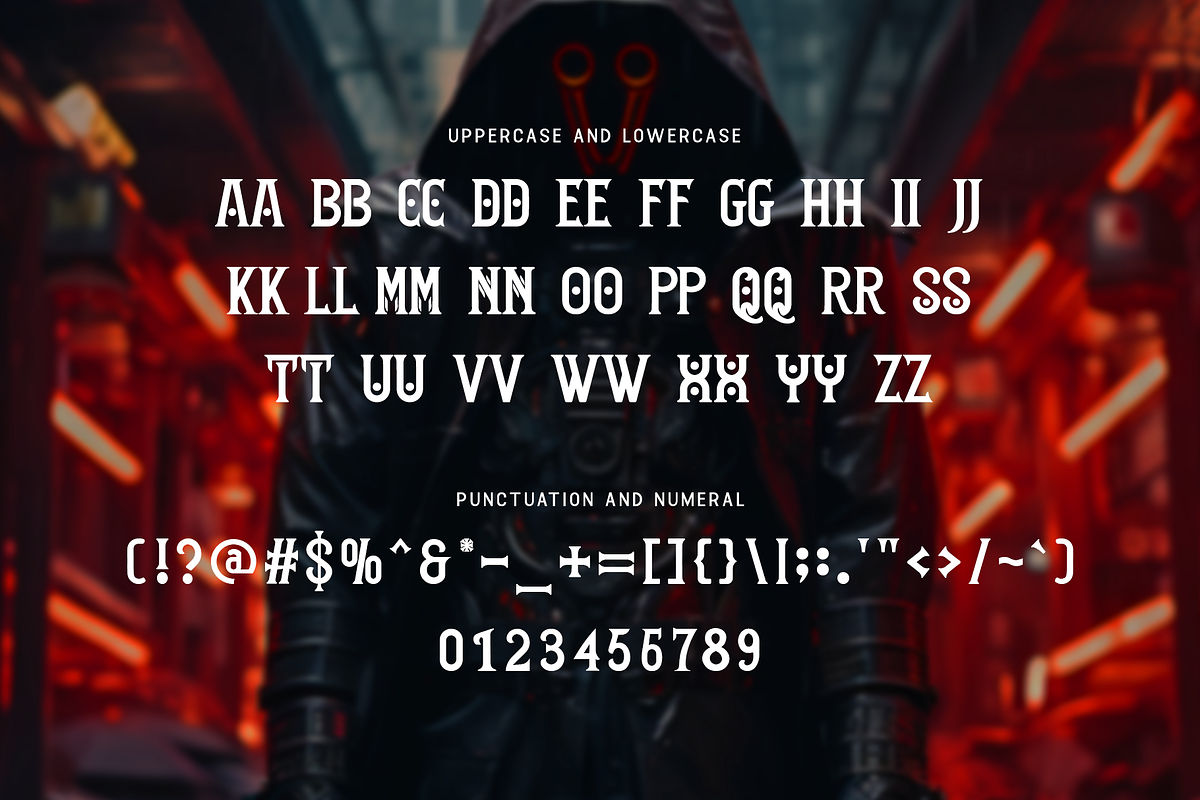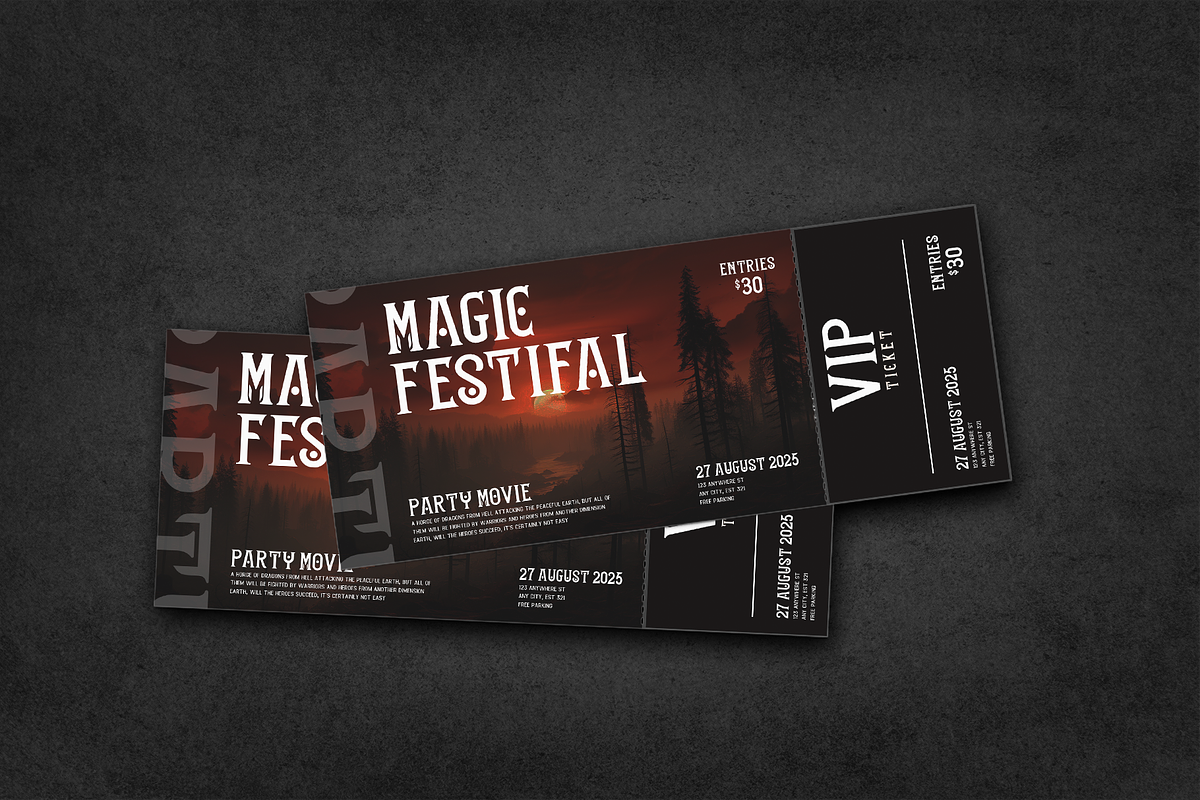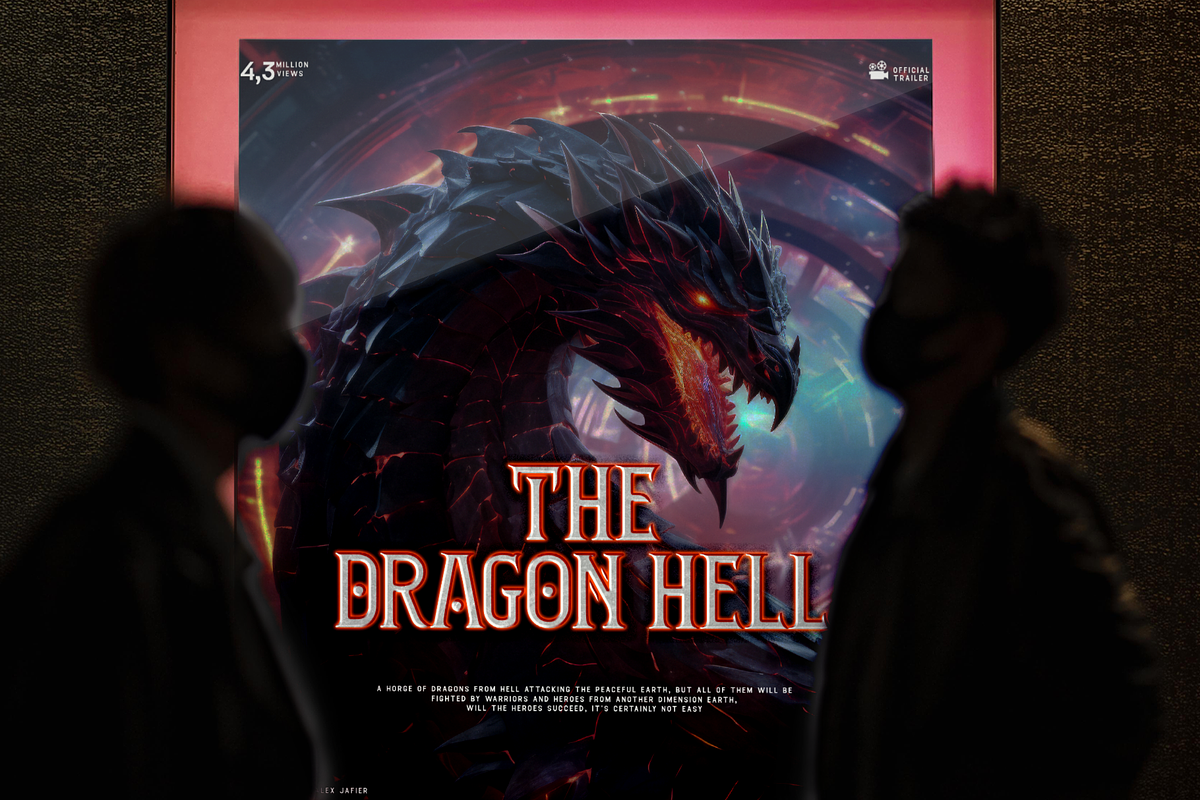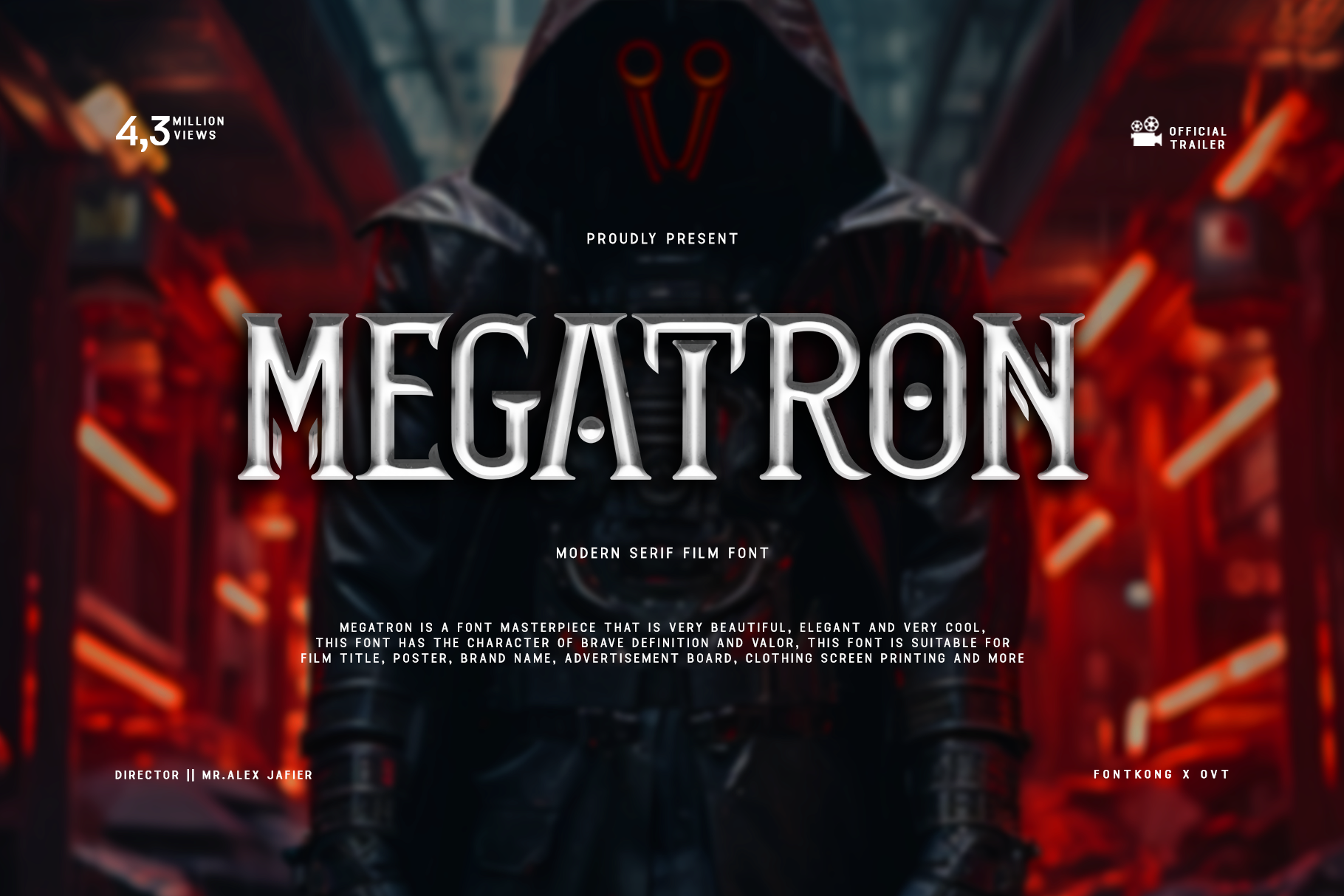
Megatron - Modern Serif Film Font
Prepare to dominate the screen with "Megatron," a modern serif film font designed to exude cinematic majesty. With its commanding presence and bold serifs, Megatron brings power and sophistication to your film titles, posters, and promotional materials.
Crafted with precision and style, Megatron embodies the essence of contemporary filmmaking with its sleek and impactful aesthetic. Whether you're creating epic movie titles, dramatic credits, or promotional banners, this font demands attention and leaves a lasting impression.
Featuring uppercase letters, numbers, and punctuation marks, Megatron offers versatility and flexibility for all your film-related projects. Its modern design ensures that your typography stands out on the big screen, setting the stage for cinematic greatness.
Unleash the cinematic majesty of Megatron and make every letter a force to be reckoned with.